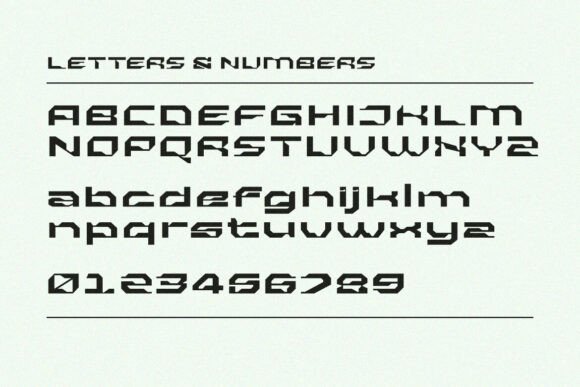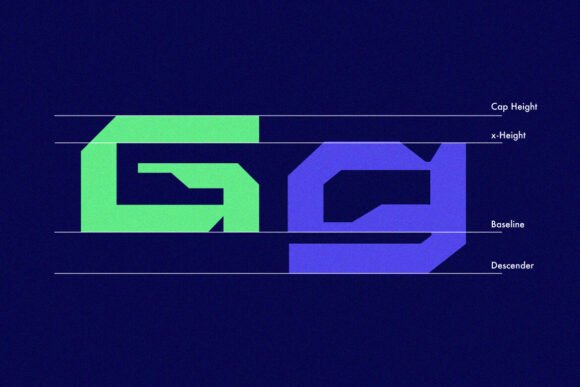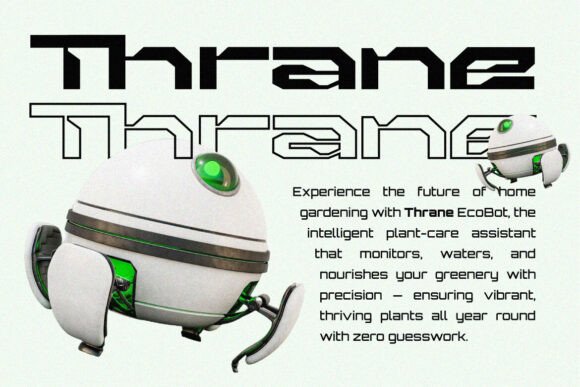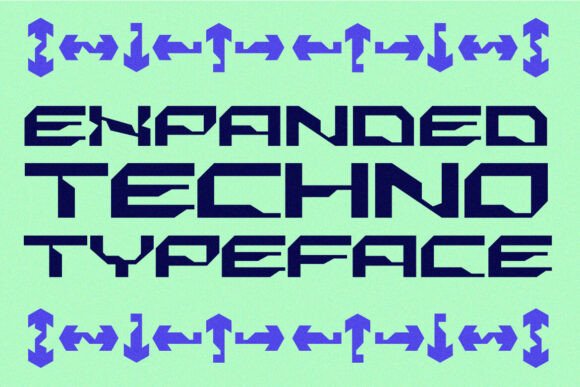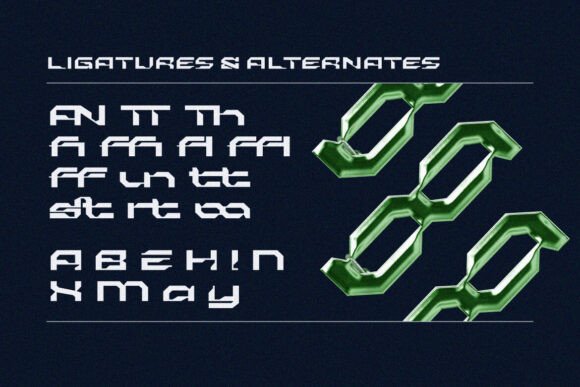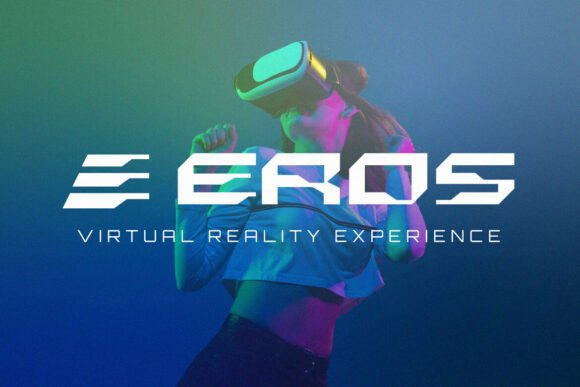
Introducing Bitro Font: The Futuristic Display Typeface for Modern Design
In the realm of typography, few fonts manage to capture the essence of innovation and forward-thinking design as effectively as Bitro. This cutting-edge display font is specifically crafted to bridge the gap between technology and design, making it an ideal choice for brands and projects that thrive on a futuristic aesthetic. Whether you’re working on tech-driven brand identities, gaming projects, sci-fi visuals, or any endeavor that demands a bold and modern look, Bitro is poised to elevate your design to new heights.
The Design Philosophy Behind Bitro
Bitro’s design is characterized by its bold, geometric structure, which provides a solid foundation for its futuristic appeal. The font’s wide, clean shapes contribute to its powerful and assertive presence, making it highly visible and impactful, especially in large displays and headers. But what truly sets Bitro apart are its unique cut-out details. These carefully crafted elements add a layer of sophistication and modernity, distinguishing Bitro from more traditional typefaces.
Key Features of Bitro Font
- Bold and Geometric Structure: Bitro’s foundation is built on strong, geometric lines that give it an undeniably modern look.
- Unique Cut-Out Details: The distinctive cut-outs add a futuristic touch, setting Bitro apart from other display fonts.
- Wide and Clean Shapes: These contribute to the font’s powerful presence, making it perfect for headlines and large displays.
- Minimalist Angles: The sleek and modern feel of Bitro is further enhanced by its minimalist approach to angles and curves.
Applications of Bitro Font
Bitro’s versatility and striking appearance make it suitable for a variety of applications. Here are some of the areas where Bitro can make a significant impact:
- Tech-Driven Brands: For companies that operate at the forefront of technology, Bitro offers a typographic solution that communicates innovation and forward-thinking.
- Gaming Projects: The font’s futuristic aesthetic makes it a great fit for game titles, character names, and in-game text, especially in sci-fi and futuristic settings.
- Sci-Fi Visuals: Whether it’s movie posters, book covers, or promotional materials, Bitro can help create a visually compelling and thematic design.
- Logos and Branding: For startups and established brands looking to revamp their image with a modern edge, Bitro can serve as a powerful logo and branding tool.
- Posters and Large Displays: Any project that requires a bold statement, such as movie posters, event banners, or digital ads, can benefit from Bitro’s assertive presence.
Why Choose Bitro Font?
Choosing Bitro for your design project comes with several advantages. Its unique aesthetic ensures that your work stands out in a crowded field, capturing the attention of your audience effectively. Moreover, Bitro’s versatility means it can be adapted across various mediums, from digital platforms to print, maintaining its impact and legibility across different sizes and resolutions.
Bitro font is more than just a typeface; it’s a design statement. With its bold geometric structure, unique cut-out details, and sleek minimalist angles, Bitro embodies the perfect blend of technology and design. Whether you’re a designer looking to elevate your project with a modern touch or a brand aiming to communicate innovation and forward-thinking, Bitro is an excellent choice. Its wide range of applications, from tech branding and gaming to sci-fi visuals and large displays, makes it a valuable addition to any designer’s toolkit. Embrace the future of design with Bitro, and make a bold statement that resonates with your audience.